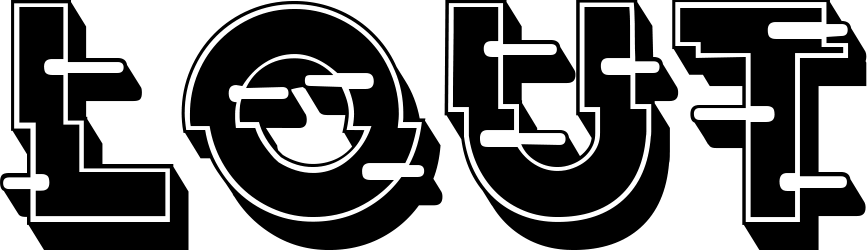
Lout Font
Lout font will give the feeling of breaking and being in a multidimensional cyber world. This 3-dimensional and broken font does not support lowercase letters and numbers. And considering these, it can be said that this cracked font is a bit unreadable. So we highly recommend using this sci-fi font in many cyber movies, computer, and video game title designs.